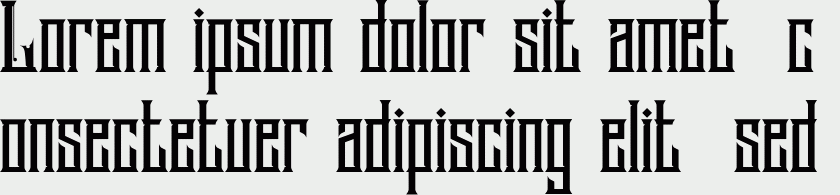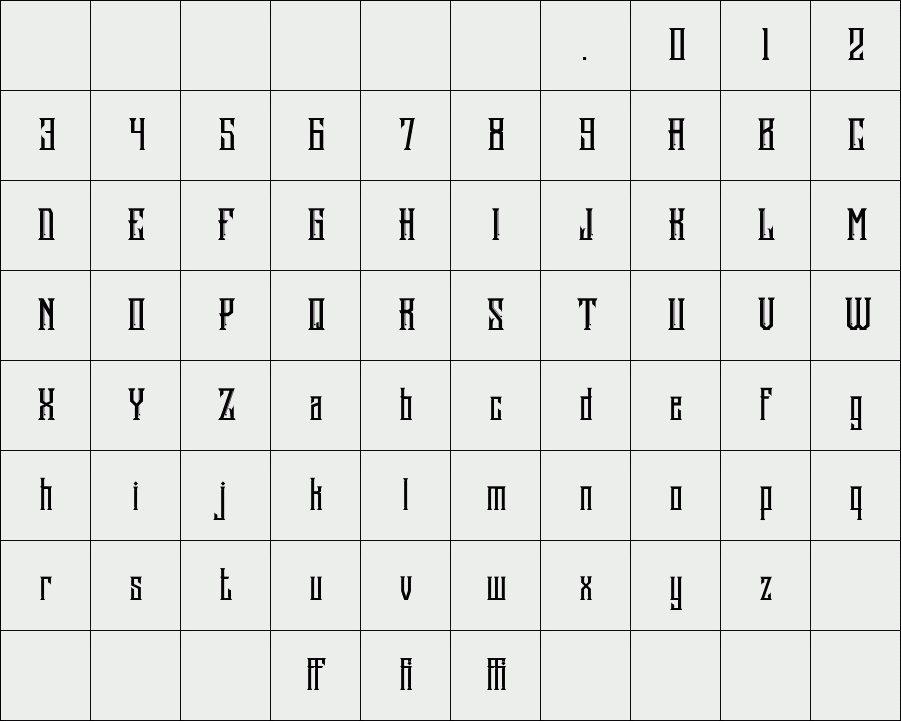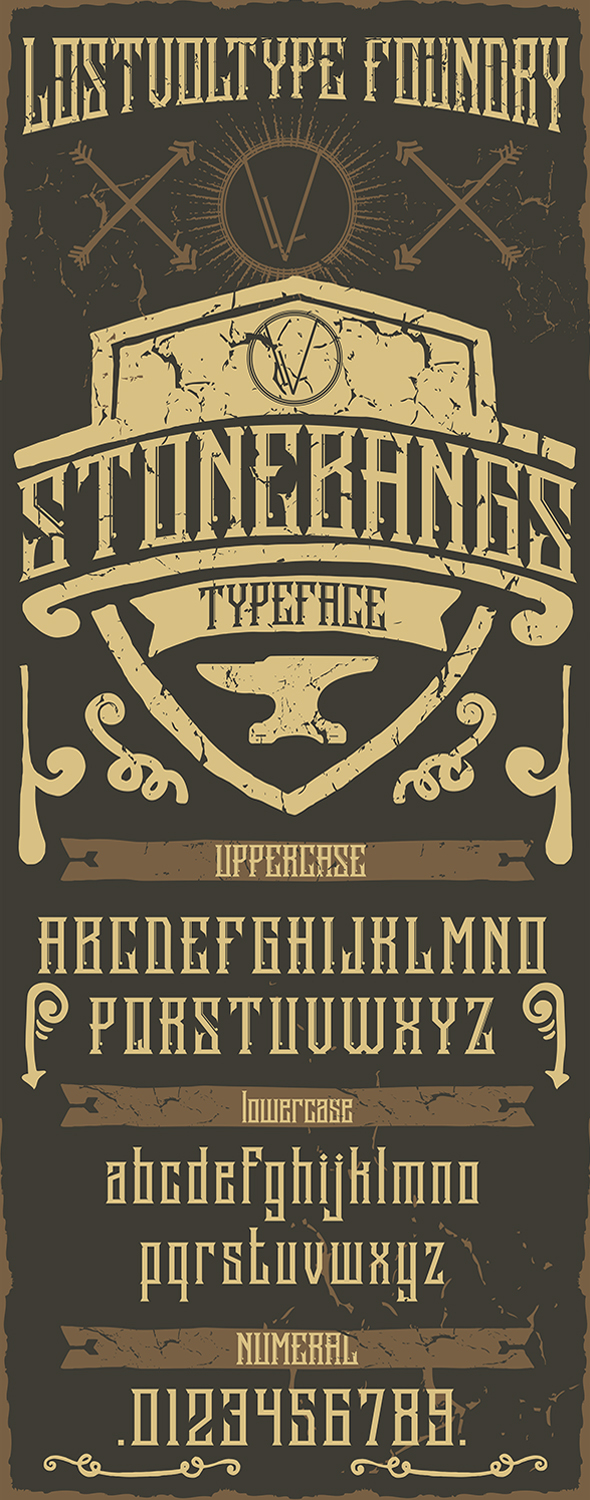
Stonebangs Typeface
Stonebangs typeface Modern Vintage typeface with some Modern touch. Great for almost all of your designing needs including headline, labels, logo, etc.
Designer: Lostvoltype foundry